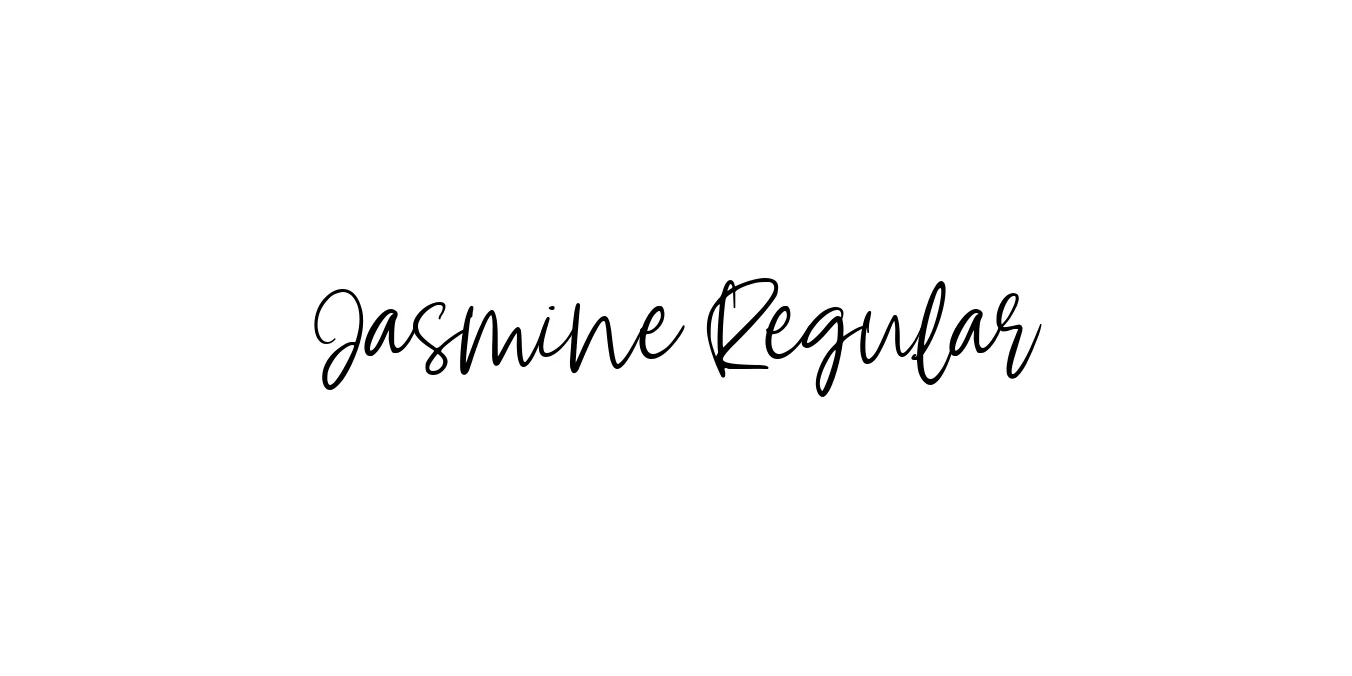
Jasmine Regular
Designed by Coert De Decker
| Font Name | Jasmine |
| Designer | Coert De Decker |
Jasmine Regular is an elegant script typeface designed to emulate the fluid motions of natural handwriting. Developed with a focus on rhythmic strokes and graceful loops, the font captures a sense of sophisticated informality. It was created to provide designers with a versatile tool for projects requiring a personal touch without sacrificing legibility.
Over the years, Jasmine Regular has become a favorite for creative professionals working on wedding invitations, greeting cards, and high-end branding materials. Its timeless appeal lies in the delicate balance between its thin connectors and bold swashes. The font is often praised for its ability to add a humanistic quality to digital layouts, making it ideal for boutique logos and editorial headings.
Jasmine Regular Best Uses
Perfect for elegant invitations, RSVP cards, and save-the-date envelopes.
Ideal for beauty, fashion, and lifestyle brands requiring a signature logo style.
Well-suited for pull quotes and decorative headlines in lifestyle magazines.
Great for creating aesthetic quote posts and stylized Instagram stories.